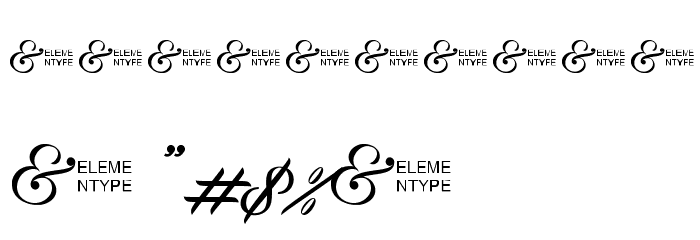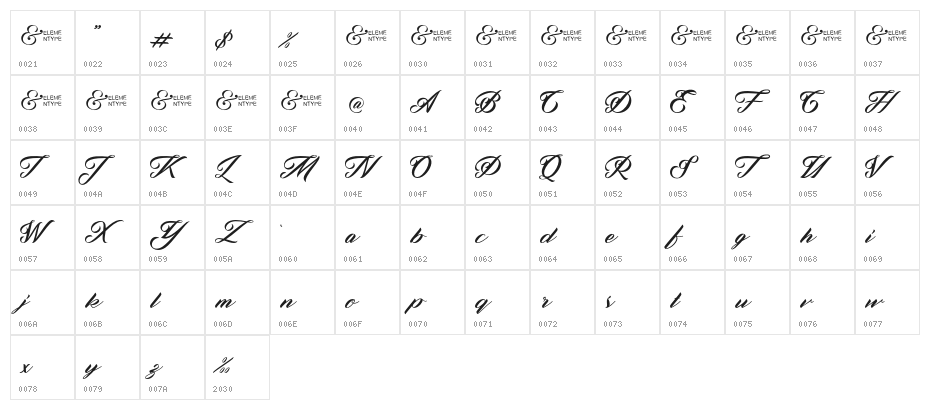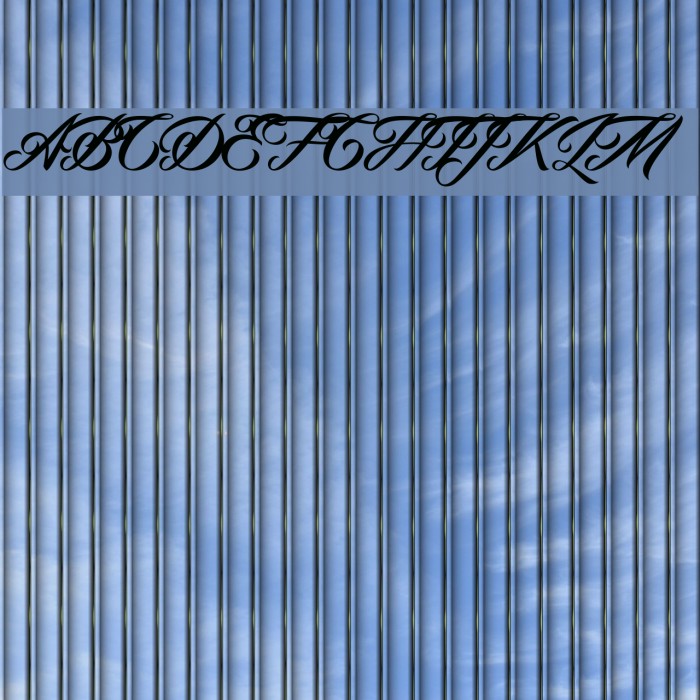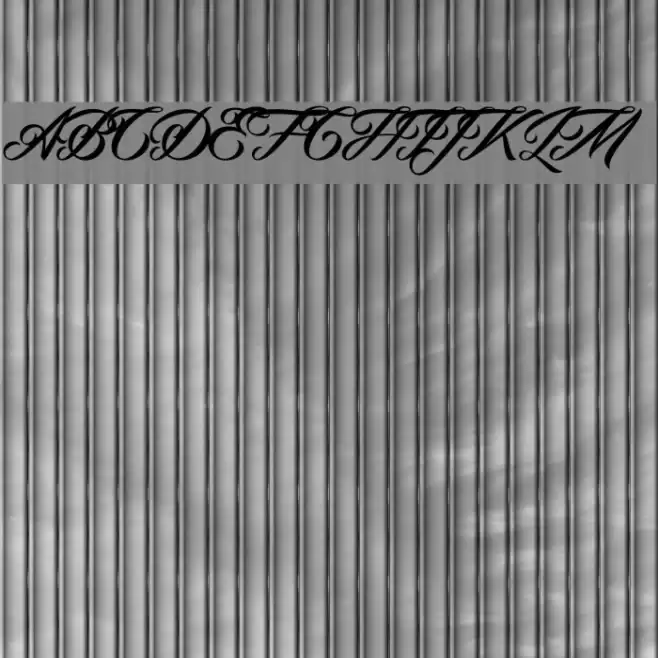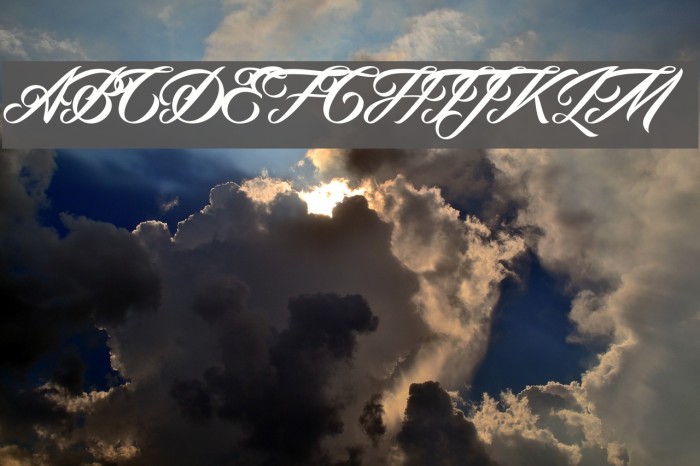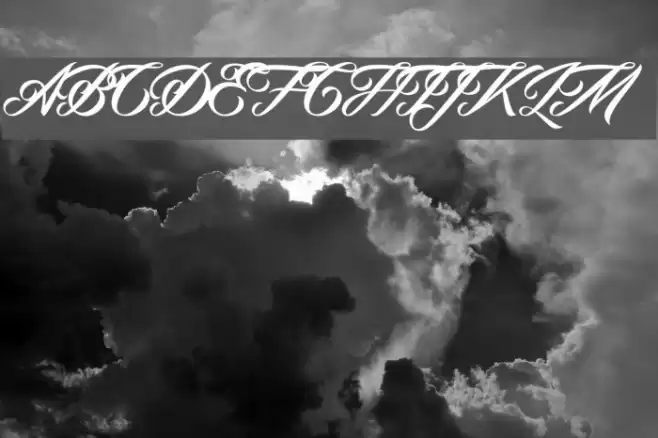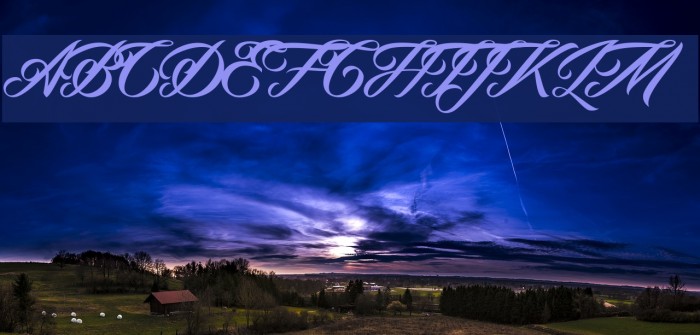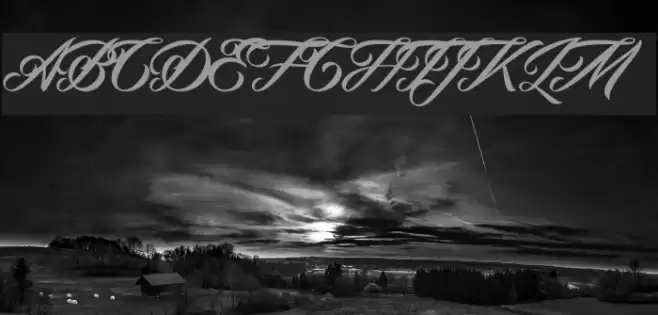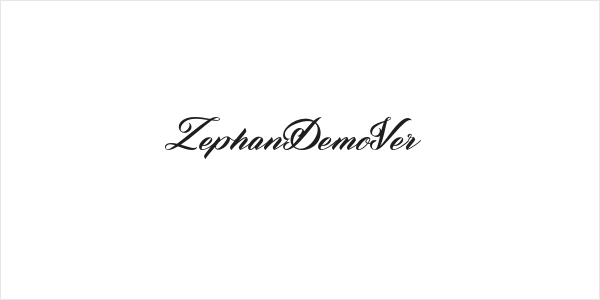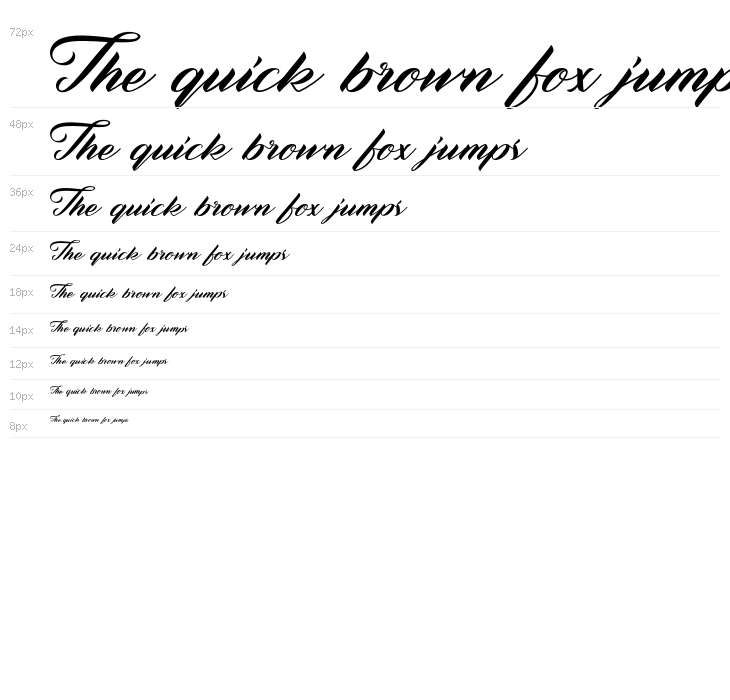
ZephanDemoVer. Font
ZephanDemoVer. Description
This font exhibits a sophisticated and elegant script style, characterized by its flowing, cursive letterforms. The uppercase letters are ornate, with elaborate swashes and flourishes that give a sense of movement and grace. The lowercase letters maintain a consistent slant, enhancing the fluidity and continuity of the text. The numerals and special characters are designed to complement the overall aesthetic, with similar curves and embellishments. This font's intricate design makes it suitable for formal and decorative applications, where a touch of elegance is desired.
| Proposed Projects | Ideal for wedding invitations, luxury branding, elegant signage, and decorative certificates. |